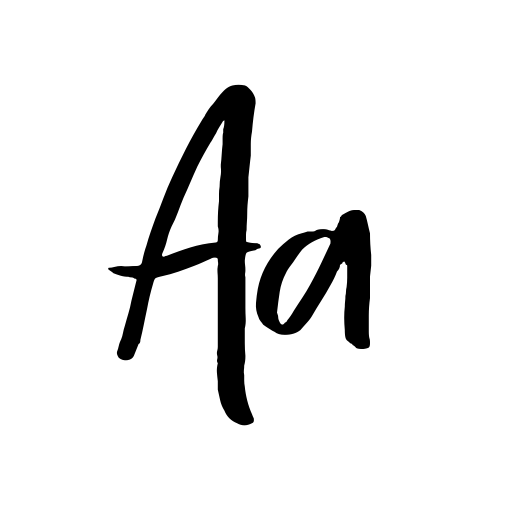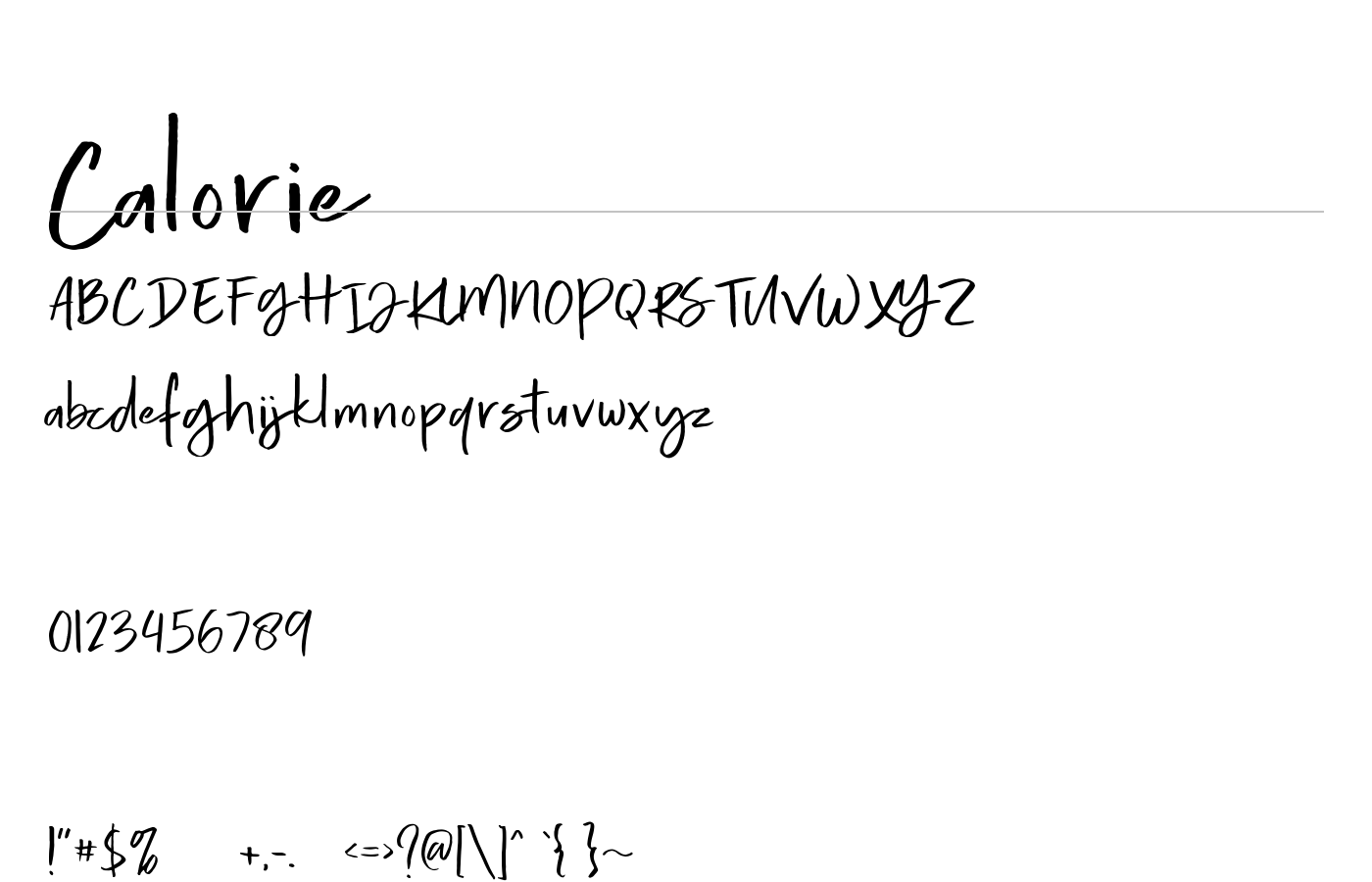
Calorie Font is a casual, handwritten script that feels natural and approachable, with a slightly playful and energetic vibe. Its irregular strokes and varying line thickness give it an authentic, hand-drawn look perfect for creative projects, lifestyle branding, and informal communications. This font works well for logos, invitations, and anything that benefits from a personal, friendly touch.
Calorie Font